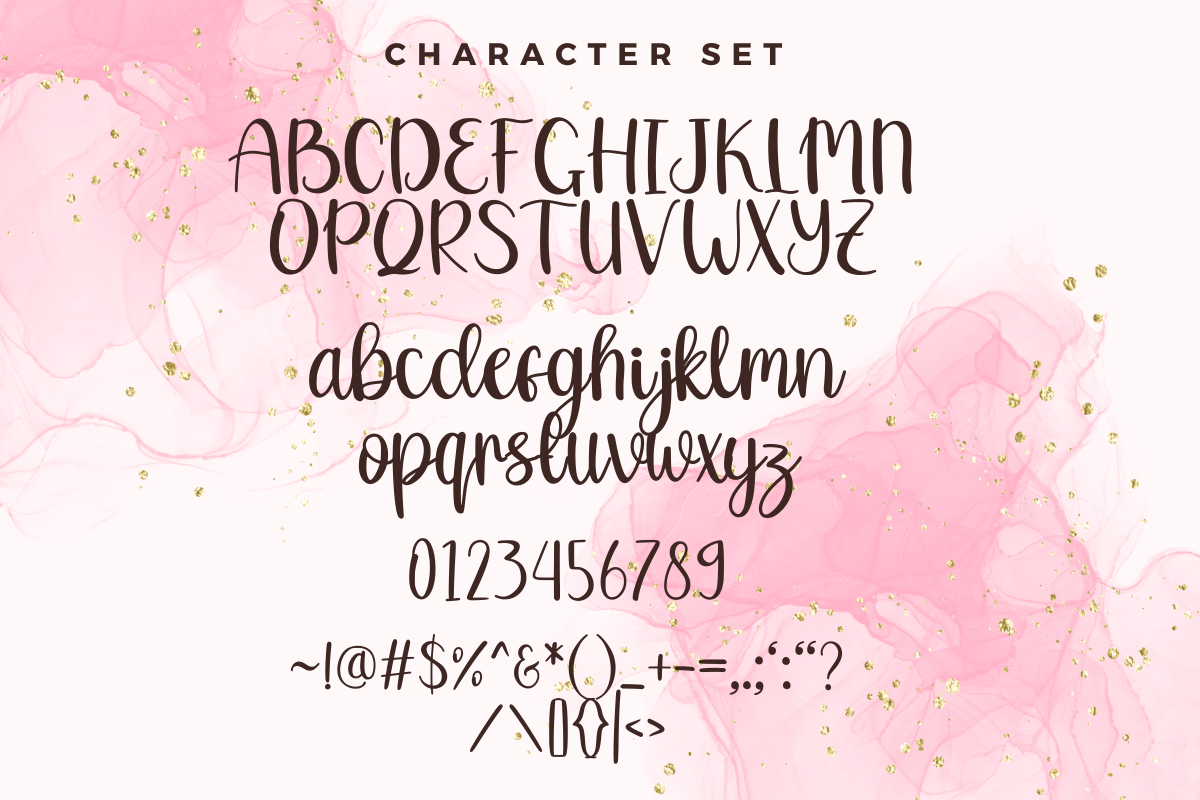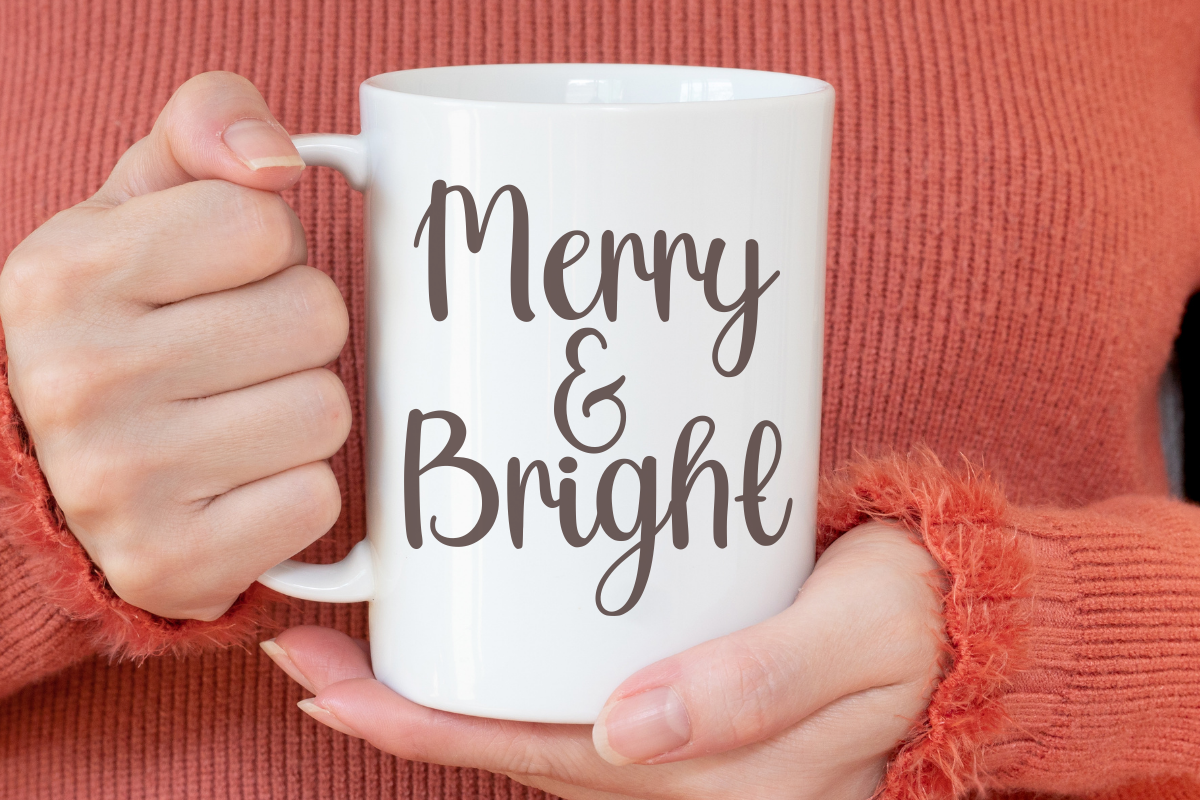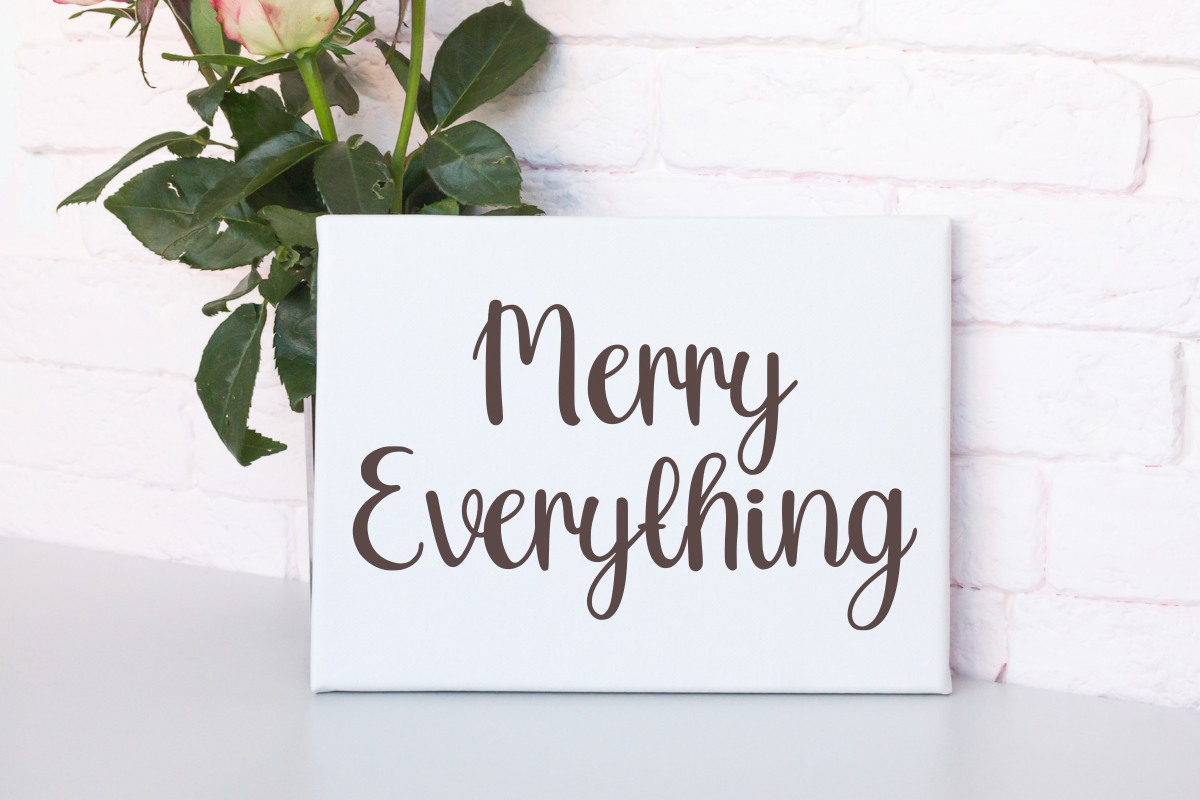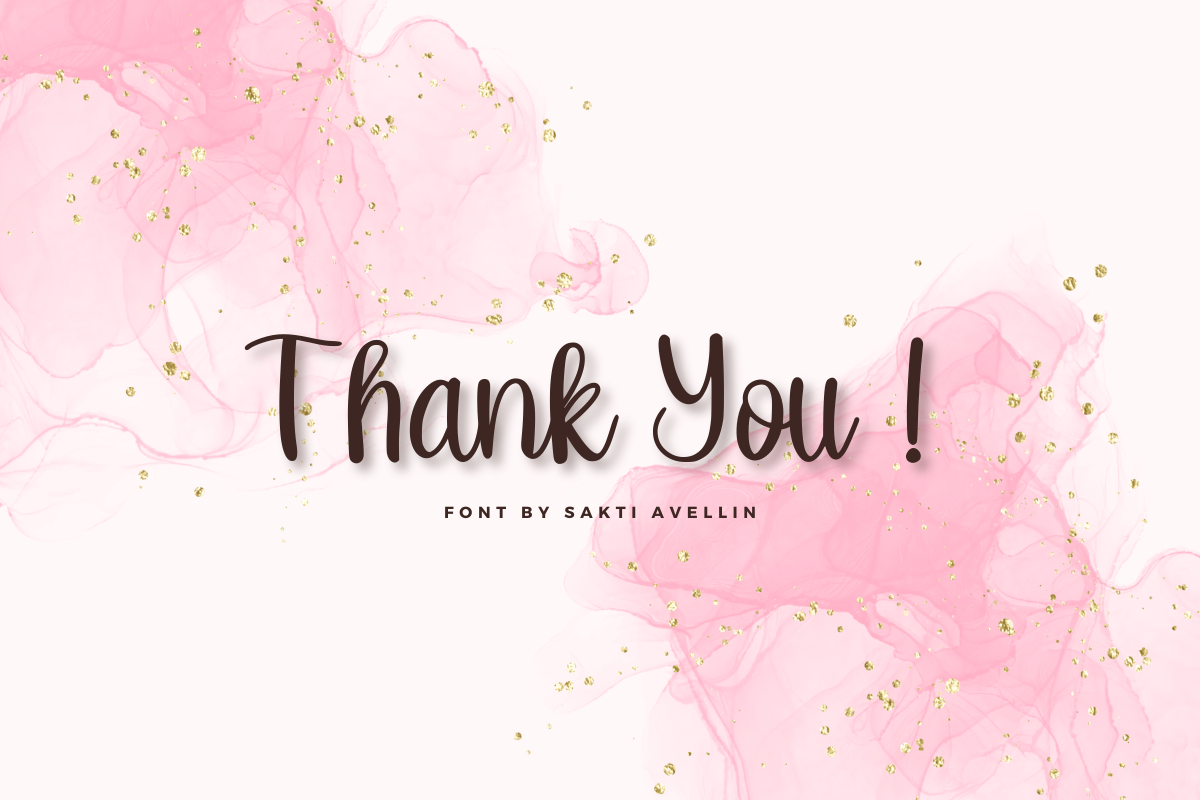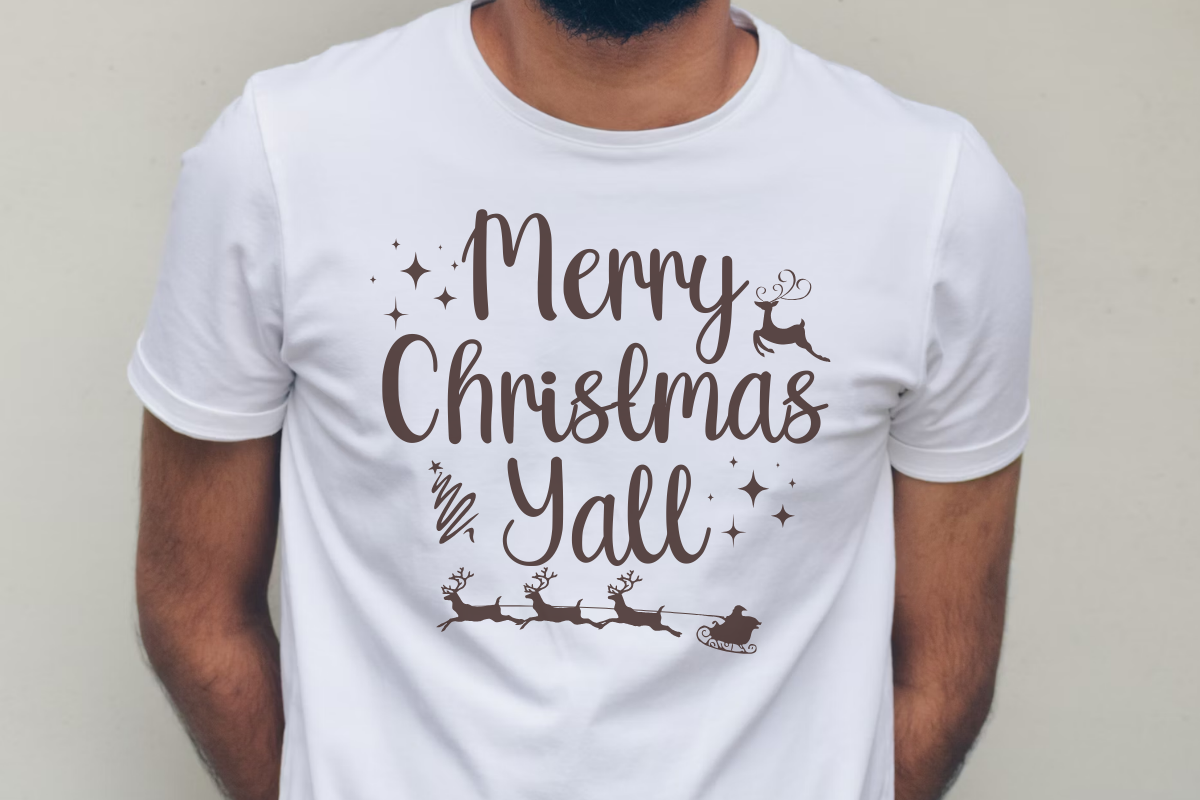
Handwritten
Delightfully modern and effortlessly playful, Handwritten encapsulates a modern script font's whimsical essence. This font breathes life into heartrending quotes, adds charm to the simplest of t-shirts, and infuses invitations or greeting cards with a personal touch. Furthermore, it transforms mugs and any other designs into joyful statements. Reimagine your designs with a fun, charismatic look with Handwritten, your partner in creating memorable moments.